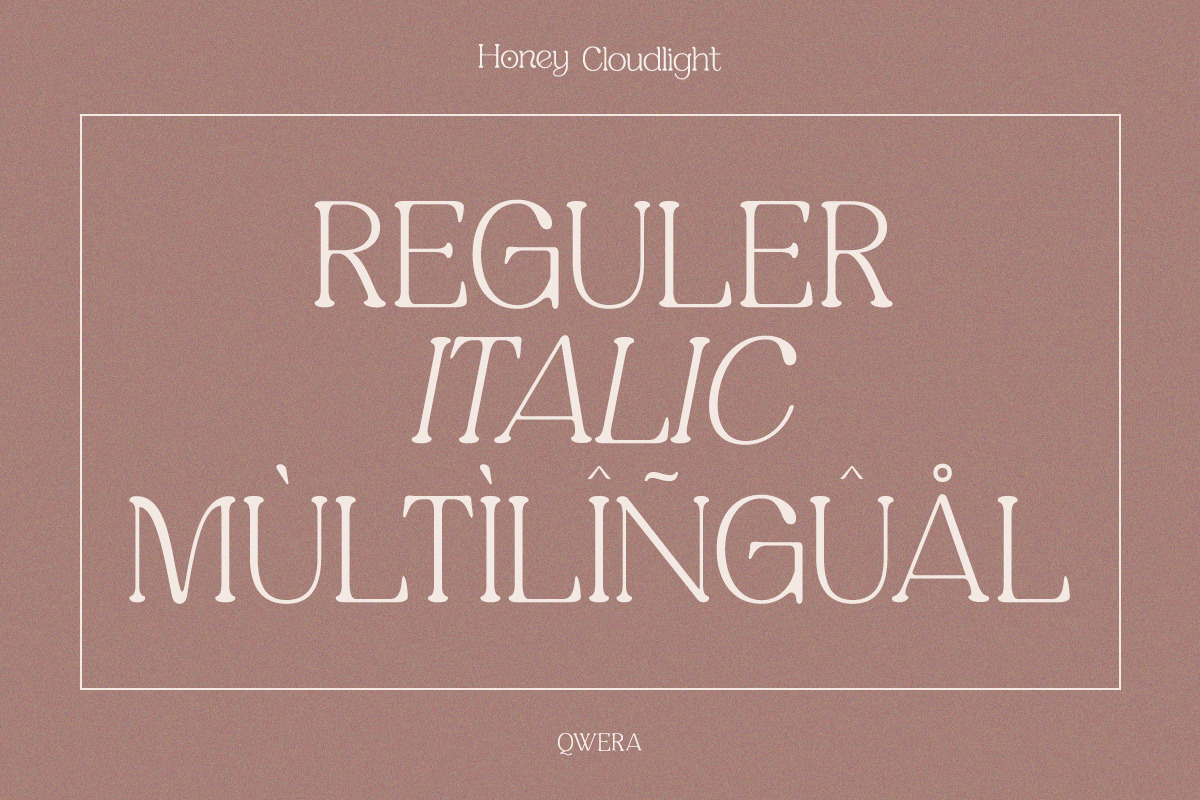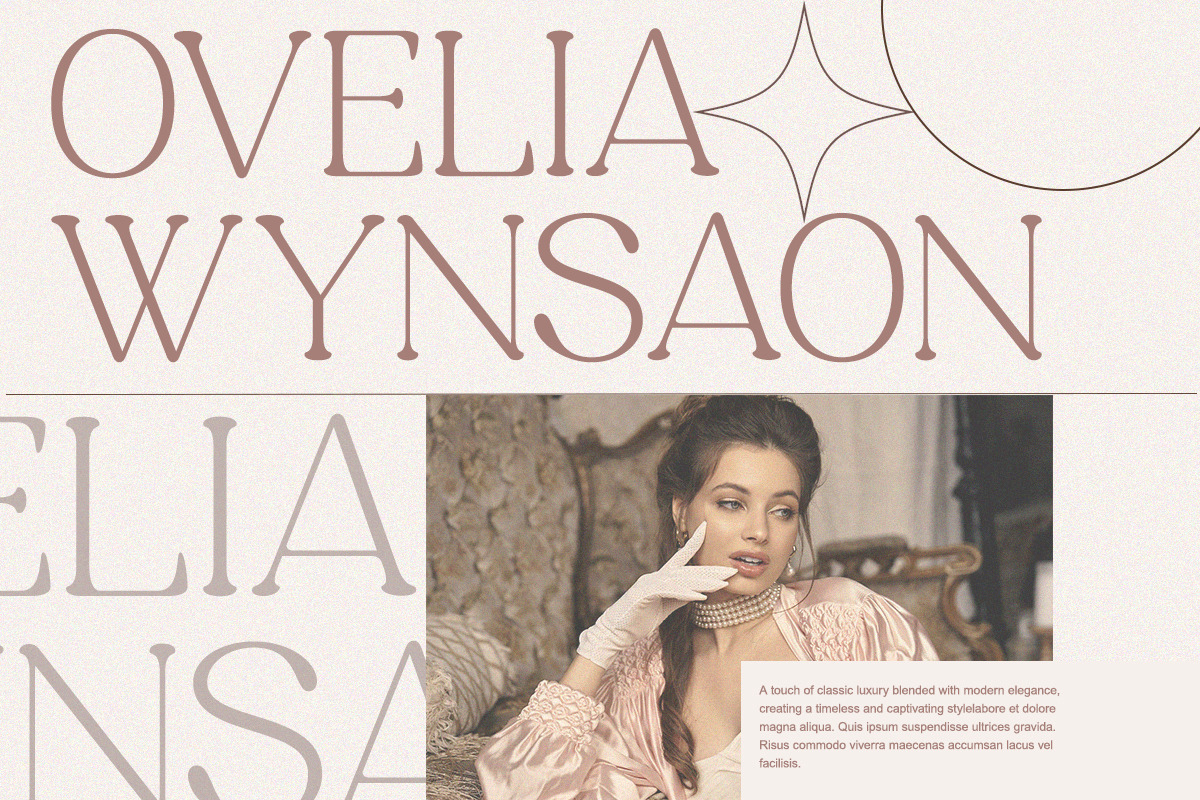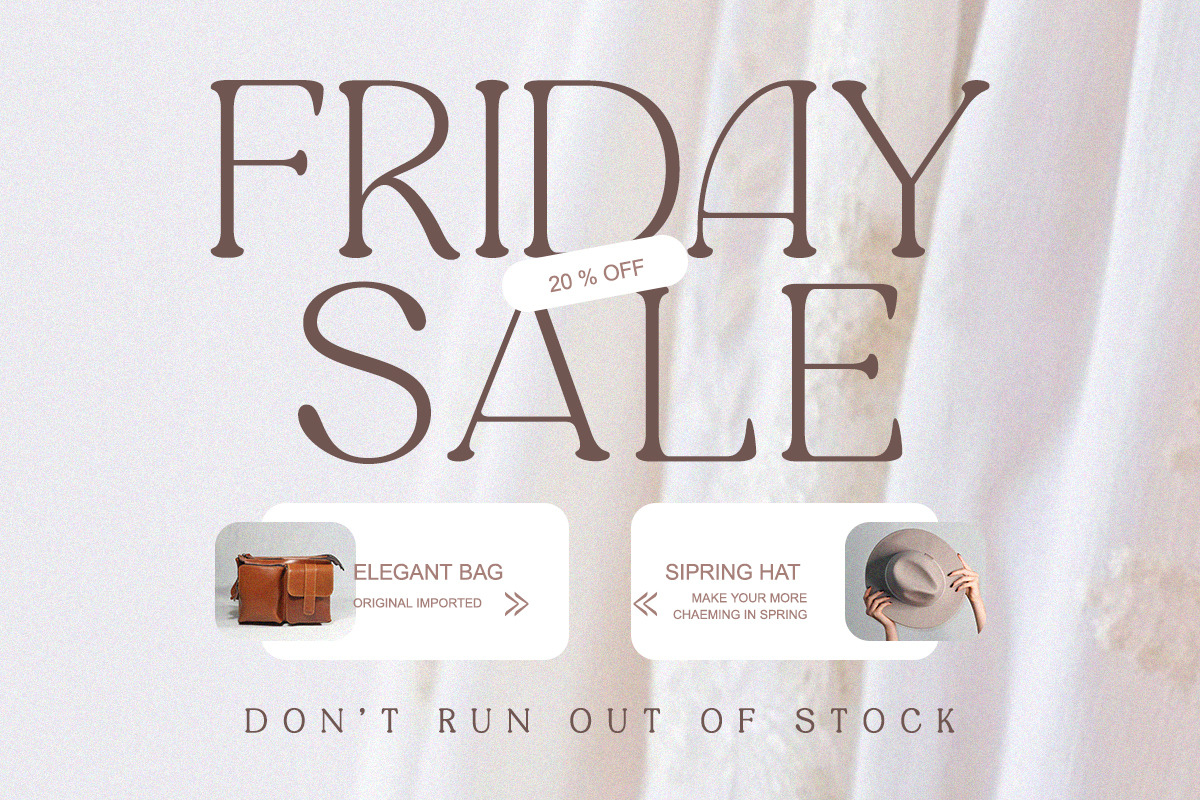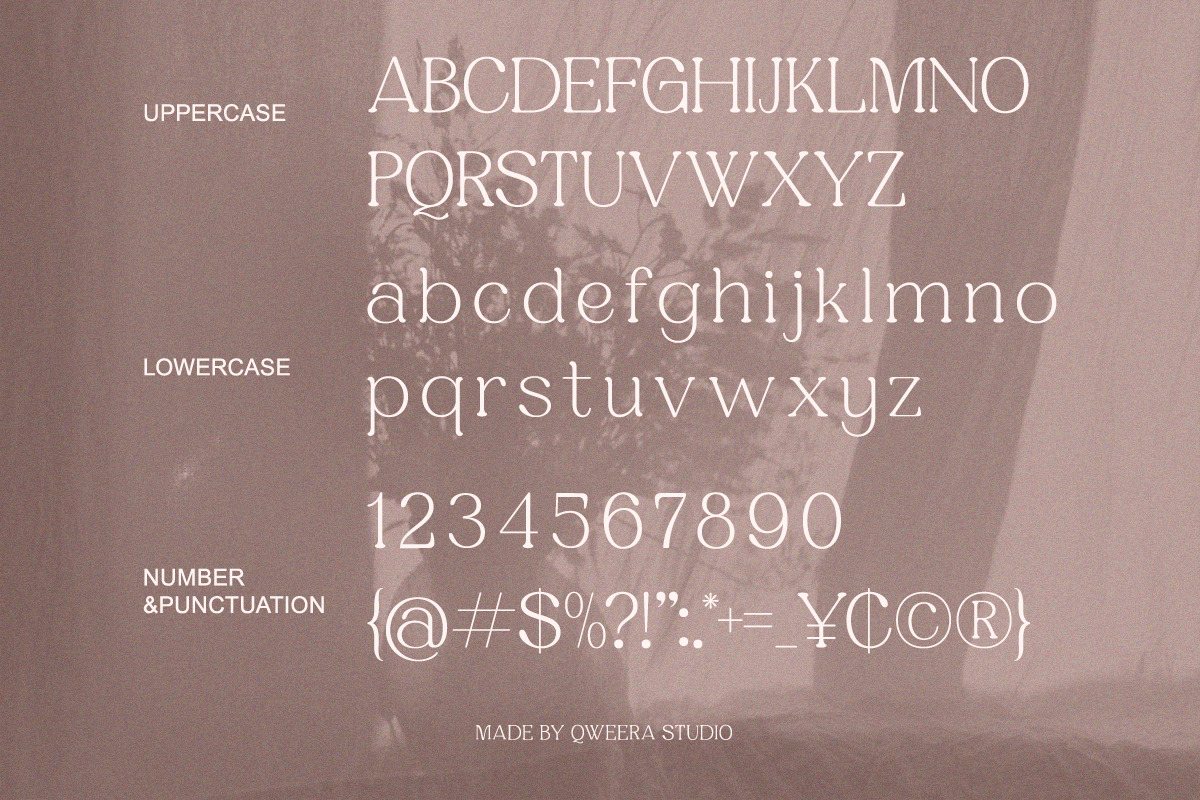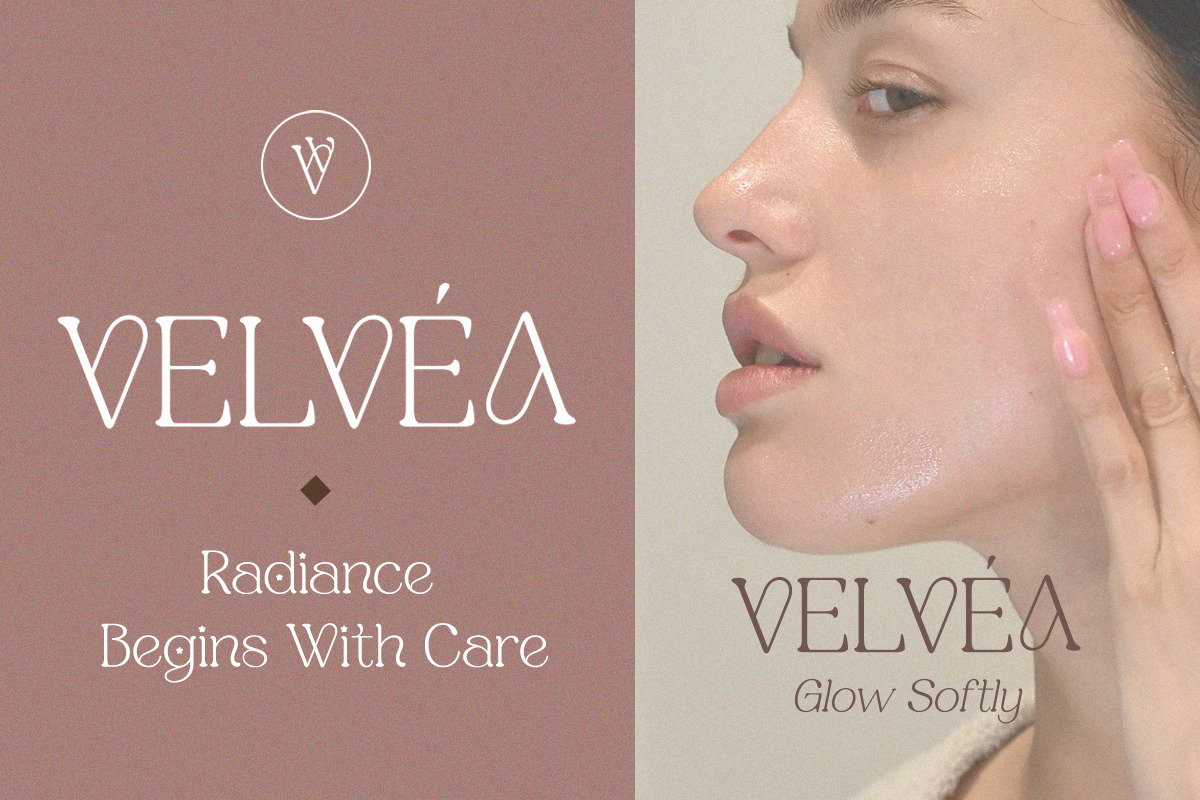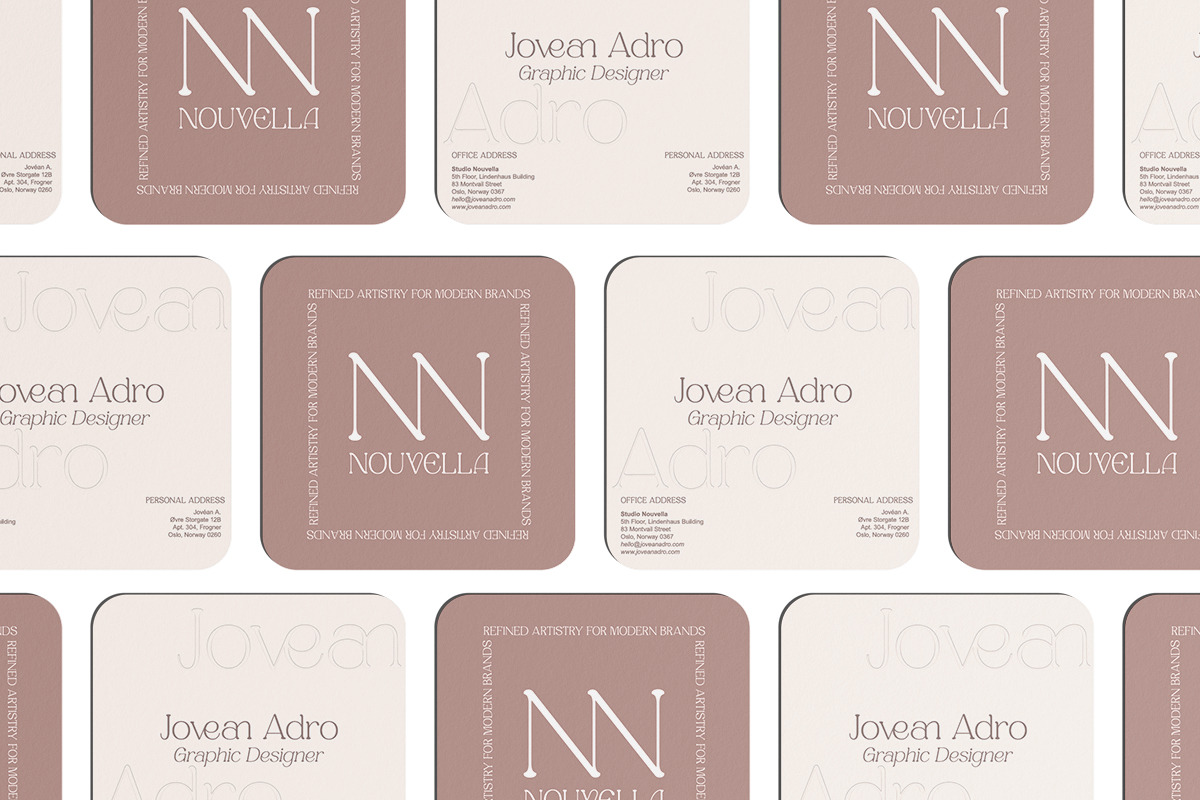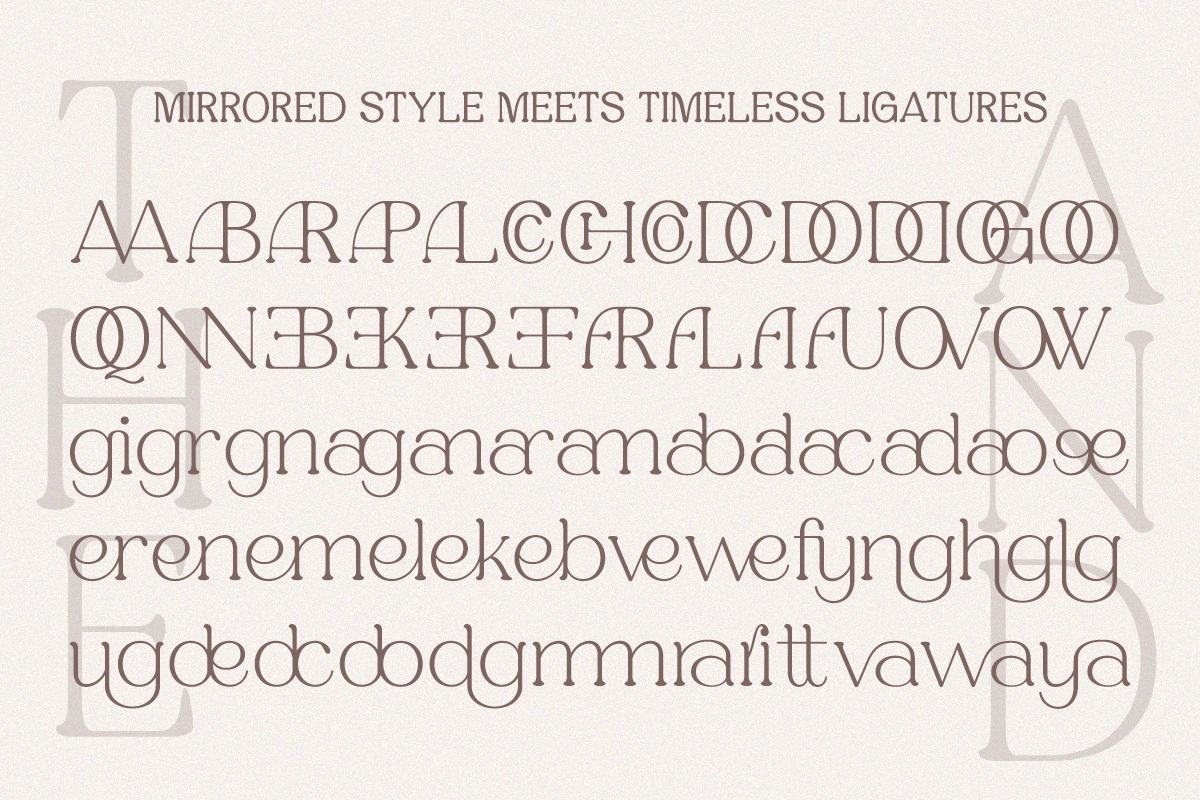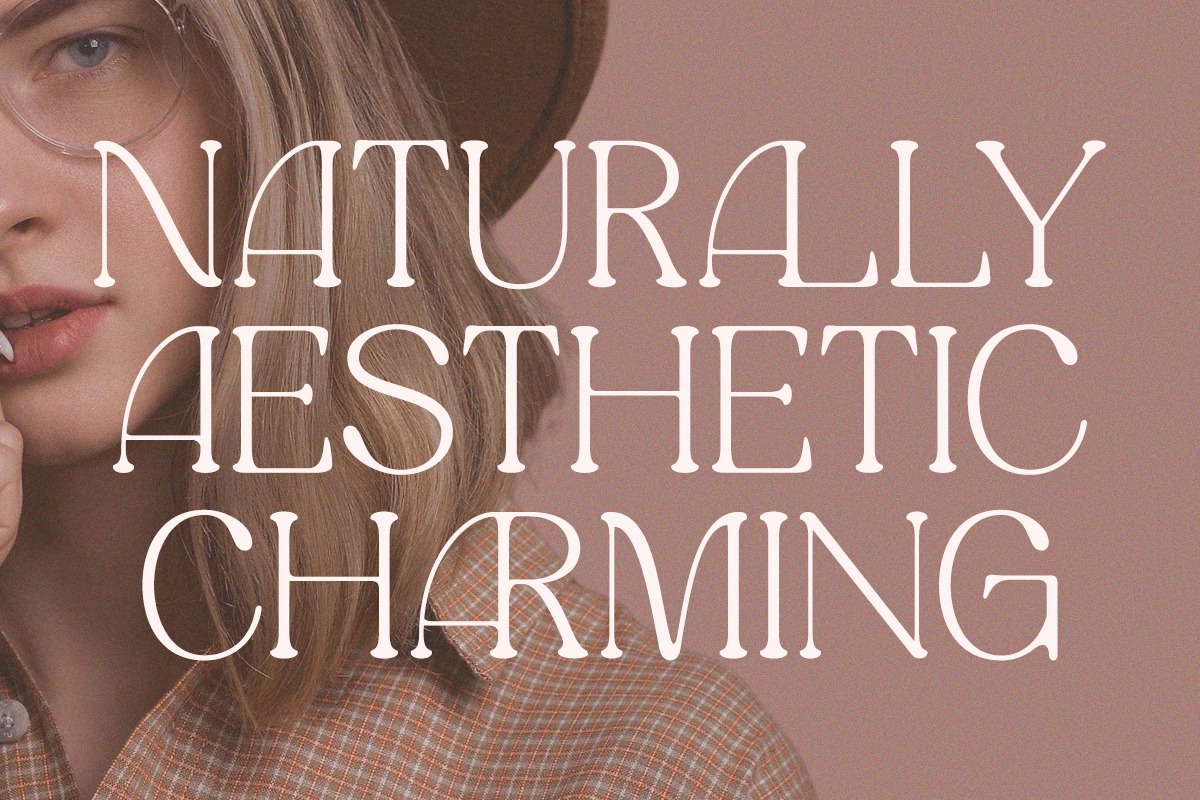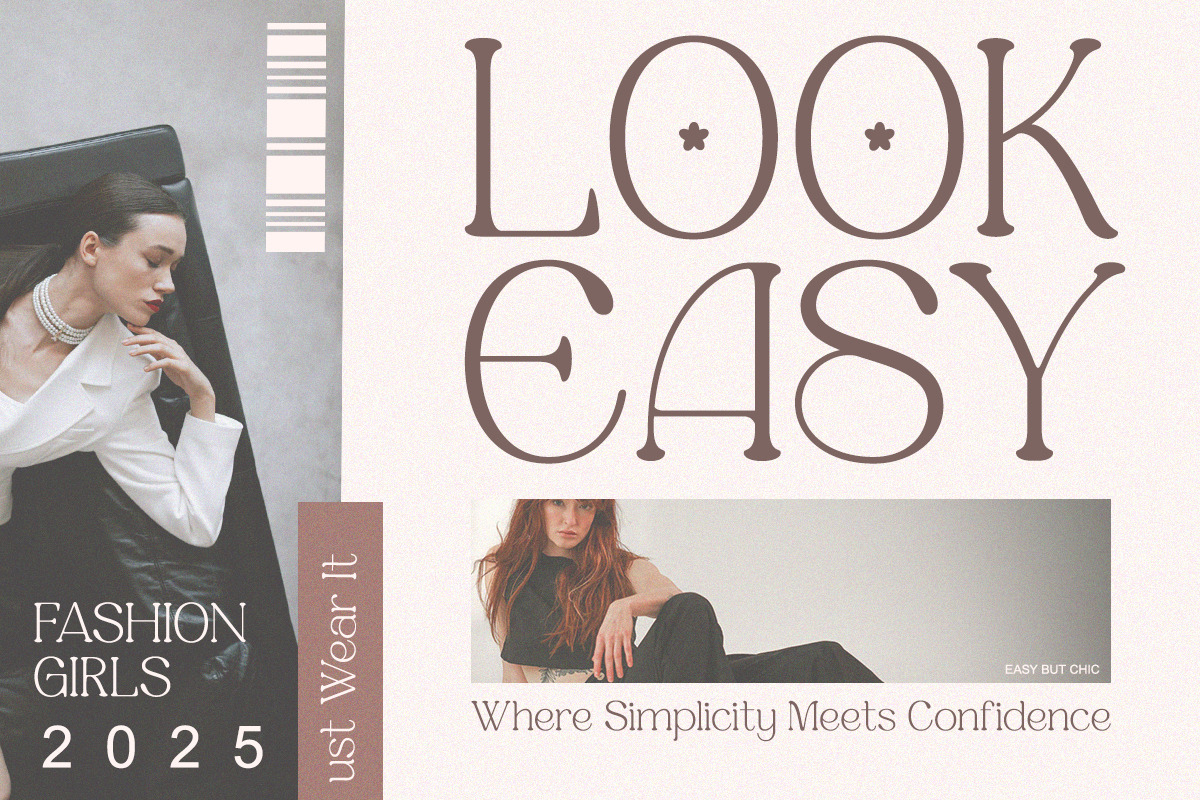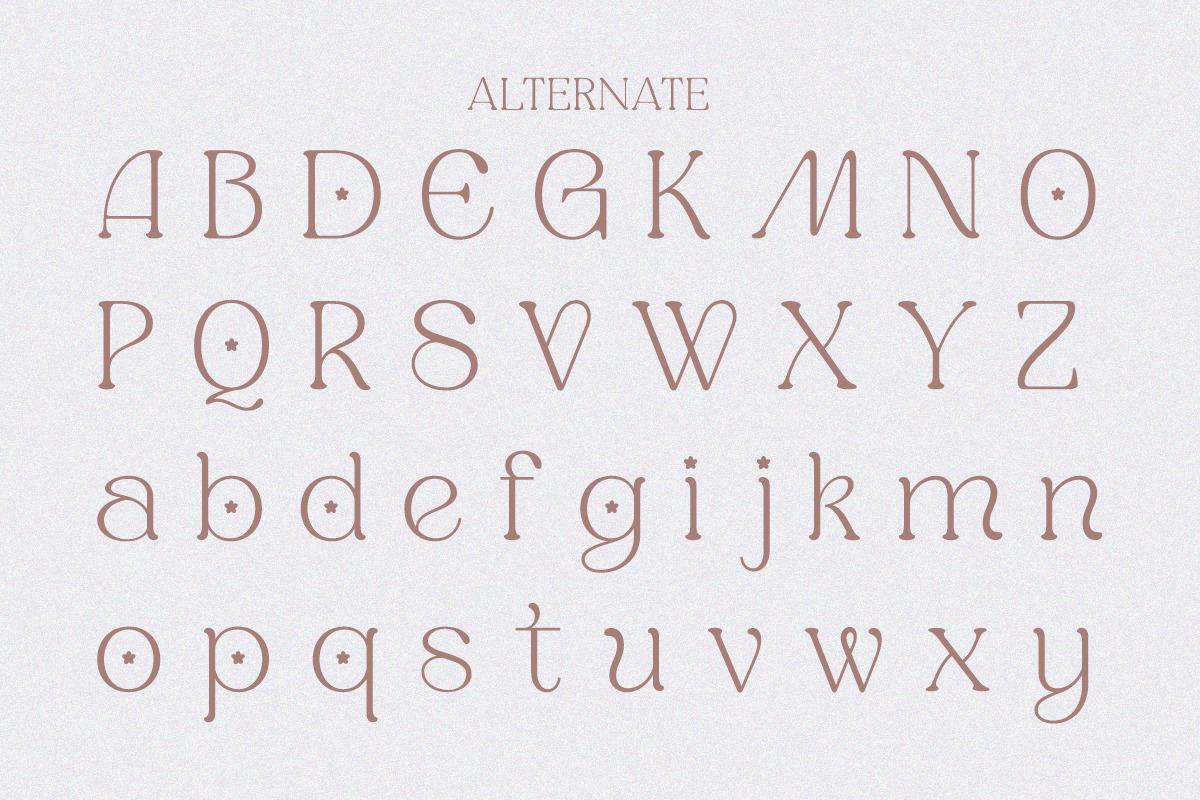
Honey Cloudlight - Modern Elegant
Honey Cloudlight is a dreamy and delicate serif font that radiates elegance and soft sophistication.
Crafted with balanced proportions and refined curves, this font is perfect for projects that require both luxury and a romantic touch. With alternates and ligatures, Honey Cloudlight becomes highly versatile—ideal for branding, wedding stationery, editorial layouts, and premium packaging.
- Modern elegant serif typeface
- Regular & Italic
- Alternates & stylish ligatures
- Smooth curves with soft high-contrast strokes
- Wedding invitations & stationery
- Feminine branding & logos
- Editorial layouts & magazines
- Elegant packaging & labels
- Luxury fashion identity
- Social media & lifestyle design
A font that captures the essence of softness, sophistication, and timeless femininity.